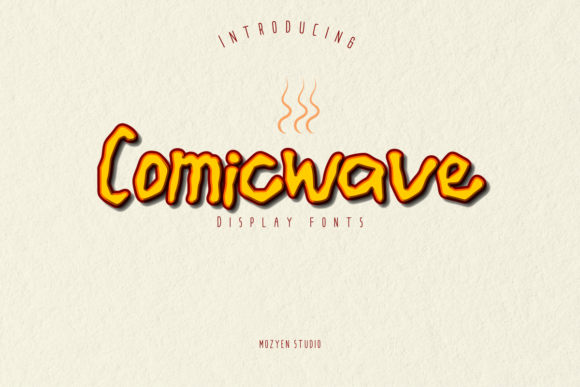
Comicwave Font
Ignite your designs with the electrifying Comicwave font, a captivating masterpiece that will transform your creative visions into extraordinary realities. Dive into a world of boundless imagination as you embrace the vibrant energy of this display font, meticulously crafted to infuse your projects with an infectious spark of joy and playfulness.
Unleash your inner artist and explore the limitless possibilities that await within the whimsical strokes of Comicwave. Let your designs dance off the page with an infectious rhythm and vibrancy that will captivate all who behold them. Whether you're crafting comic book covers that burst with action or creating animated characters that leap from the screen with infectious charm, Comicwave empowers you to weave tales that resonate deeply with your audience.
Experience the transformative power of Comicwave as it effortlessly elevates your designs to new heights of creativity. Each letterform is a masterpiece in itself, boasting a unique character that harmoniously blends together to create a symphony of visual delight. The bold and dynamic strokes command attention, while the playful curves evoke a sense of lightheartedness and whimsy.
Indulge in the versatility of Comicwave, a font that adapts seamlessly to a myriad of design endeavors. Its playful nature lends itself beautifully to children's books and toy packaging, while its captivating energy breathes life into posters and social media graphics. Unleash your imagination and discover the endless possibilities that lie within this extraordinary font.
With Comicwave by your side, you'll embark on a creative journey where imagination knows no bounds. Let your designs soar with the infectious energy of this remarkable display font, and captivate your audience with creations that ignite their senses and leave an enduring impression. Embrace the power of Comicwave today and unlock a world of design possibilities that will redefine your creative horizons.